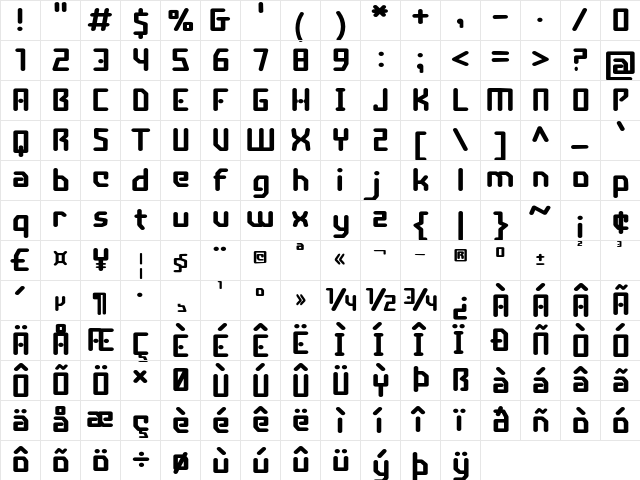
Complete Aeris Corda Bold glyph index. Displaying only characters natively supported by Aeris Corda Bold font.
Aeris Corda is a composed and adaptable typeface that performs quietly and consistently across a wide range of design contexts. Its bold stroke weight gives it real presence on the page.